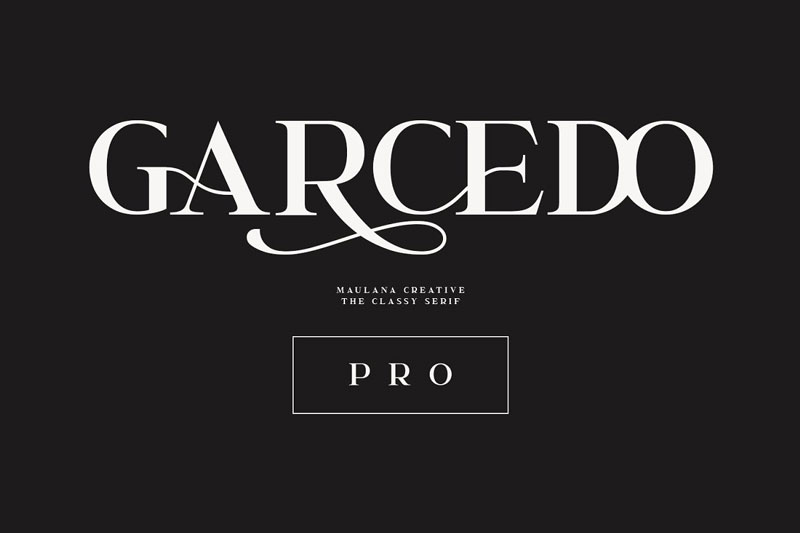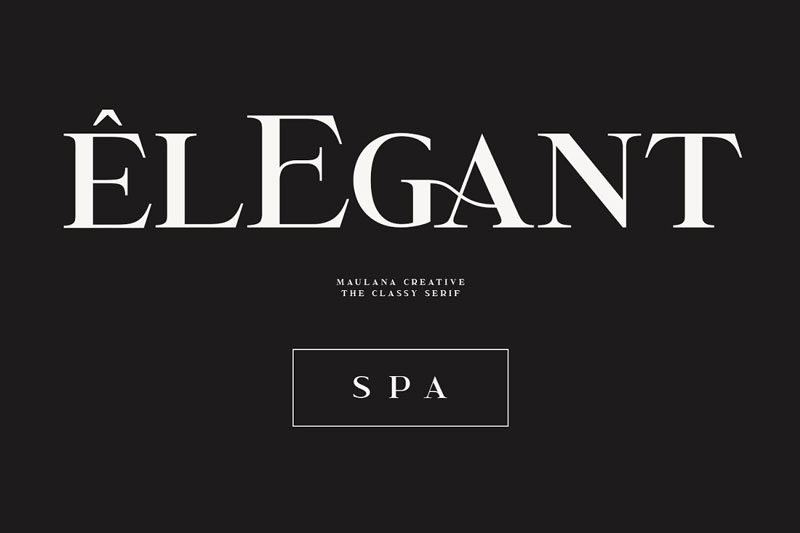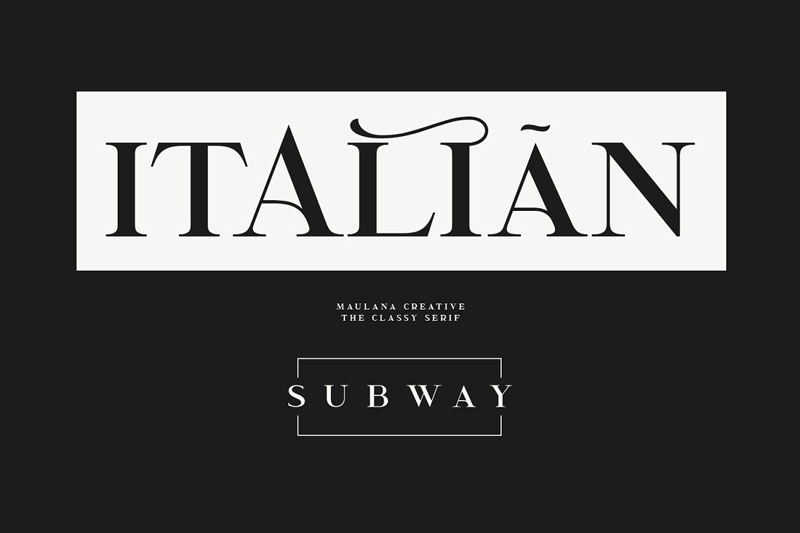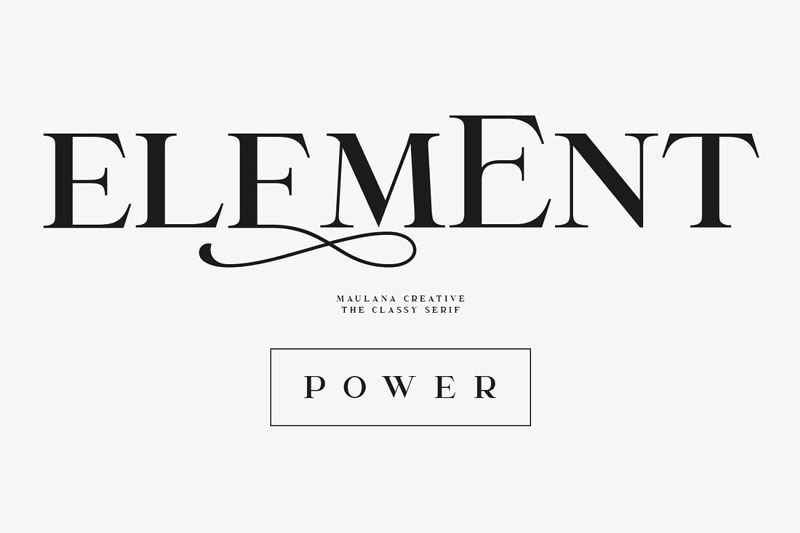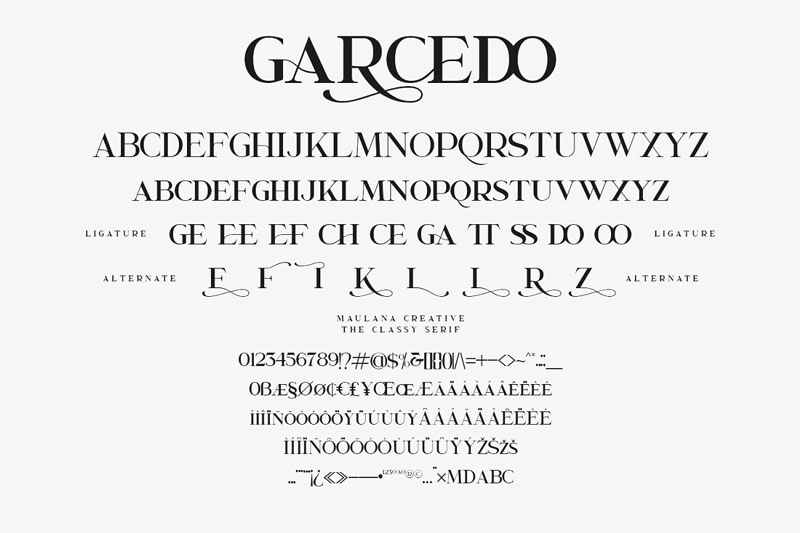
Garcedo Display Serif Font 4760558
Introducing Garcedo Serif Font. Garcedo Serif Font is a handmade Victorian hand-lettering, which is combining modern and classic typography with some awesome alternates. Yes we back to the early 1800s, bring classic touch on this decade.
• Ligatures & Alternate
• Multilingual Support